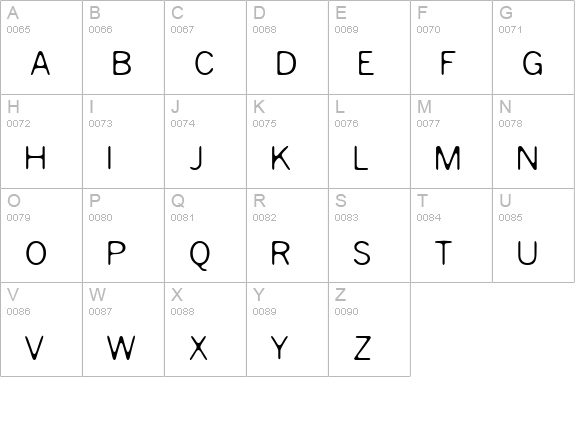
Slurry Font Details
Introducing Slurry, a mesmerizing font that effortlessly blends elegance with a touch of playfulness. This unique typeface showcases a harmonious balance between bold and delicate strokes, creating a captivating visual experience that will leave a lasting impression. Slurry is the epitome of versatility, making it suitable for a wide range of design projects. Whether you're working on branding, editorial layouts, invitations, or even social media graphics, Slurry will infuse your creations with a sense of sophistication and charm. With its carefully crafted letterforms and attention to detail, Slurry brings a refreshing twist to traditional typography. Its smooth curves and refined lines exude a sense of grace, while its subtle quirks add a delightful element of surprise. This font effortlessly captures attention, making it perfect for headlines, titles, and eye-catching displays. But what truly sets Slurry apart is its versatility and accessibility. Designed with the modern designer in mind, Slurry is freely available to download at FontsMarket.com. This means you can bring your creative visions to life without breaking the bank. Whether you're a seasoned professional or just starting out, Slurry is the perfect companion for all your design endeavors. So why wait? Elevate your designs and unlock a world of creative possibilities with Slurry. Download this stunning font today and let its enchanting allure captivate your audience.